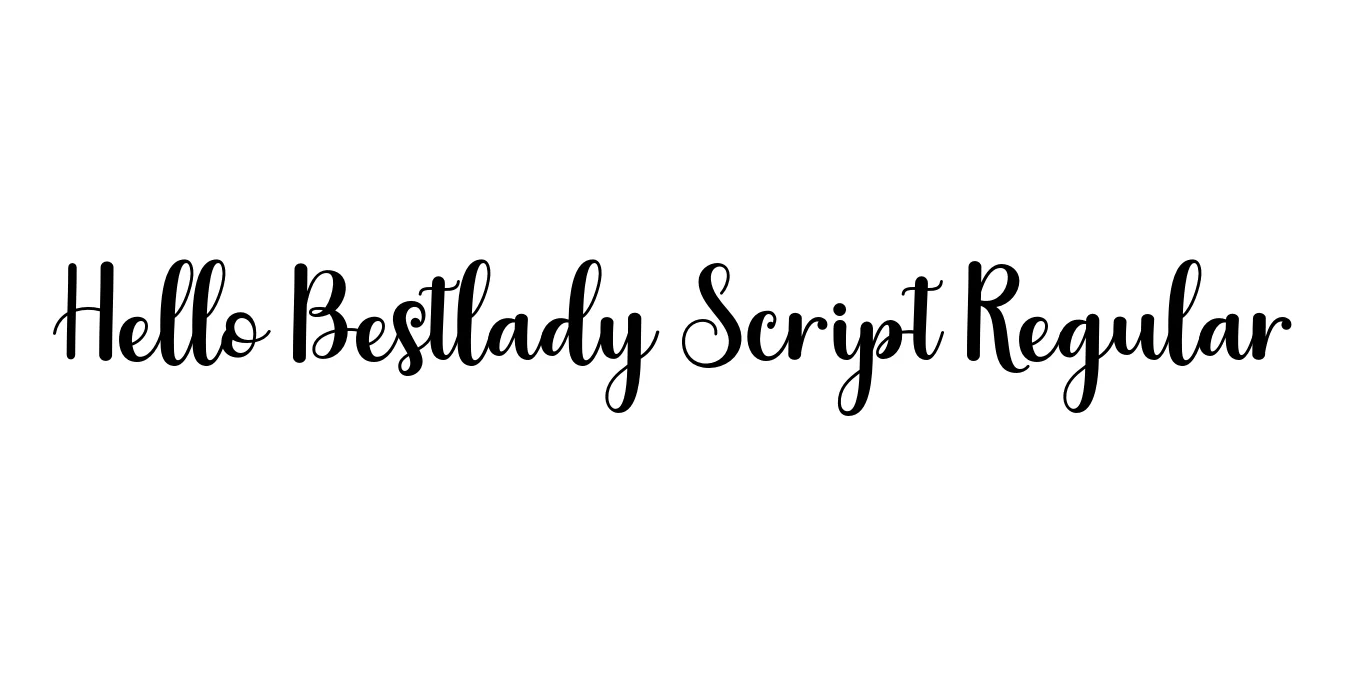
Hello Bestlady Script Regular
Designed by Vunira Design
Hello Bestlady Script Regular is a sophisticated and elegant calligraphy typeface that captures the essence of modern hand-lettering. Characterized by its fluid transitions and graceful swashes, this font is meticulously crafted to add a personal and high-end feel to any design project. Its rhythmic flow and varying line weights create a sense of movement that is both contemporary and timeless.
Created by the talented team at Vunira, this font includes a full set of uppercase and lowercase letters, numerals, and punctuation. It is particularly popular in the wedding and lifestyle industries for its romantic aesthetic. The font's versatility ensures it remains legible while maintaining a decorative flair, making it a favorite for designers looking for a balance between artistic expression and professional polish.
Hello Bestlady Script Regular Best Uses
Perfect for invitations, save-the-dates, and place cards that require a romantic touch.
Ideal for luxury brands, beauty boutiques, and lifestyle influencers.
Great for creating stylish Instagram quotes and Pinterest-ready graphics.
Adds a premium and artisanal feel to product labels and gift boxes.